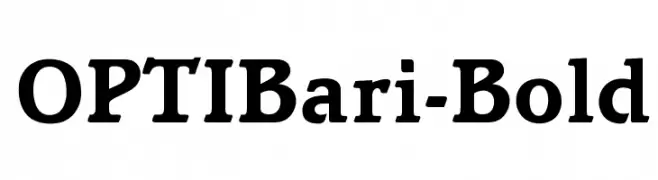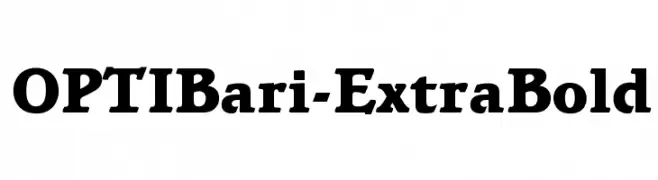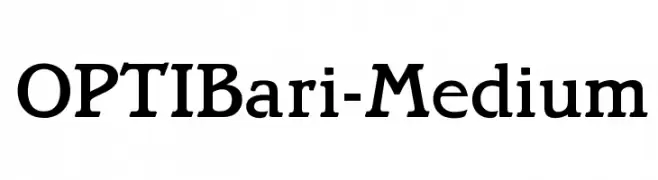
A bold serif font with strong strokes and classic serifs.
A bold, modern serif typeface with strong, thick strokes and pronounced serifs.
A classic serif font with elegant, thin strokes and refined proportions.
A classic serif font with medium weight and moderate contrast, offering elegance and readability.
A bold serif font with a classic and authoritative style.
A bold, italic serif font with a modern and dynamic style.
A classic serif font with elegant and balanced characters.
Elegant serif font with an italic slant and moderate stroke contrast.
A bold, heavy serif font with strong, commanding strokes.
A bold, italic serif font with strong, dynamic strokes and prominent serifs.